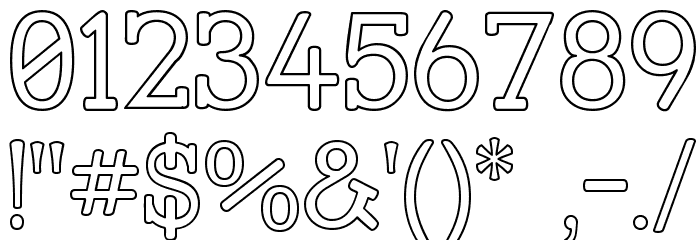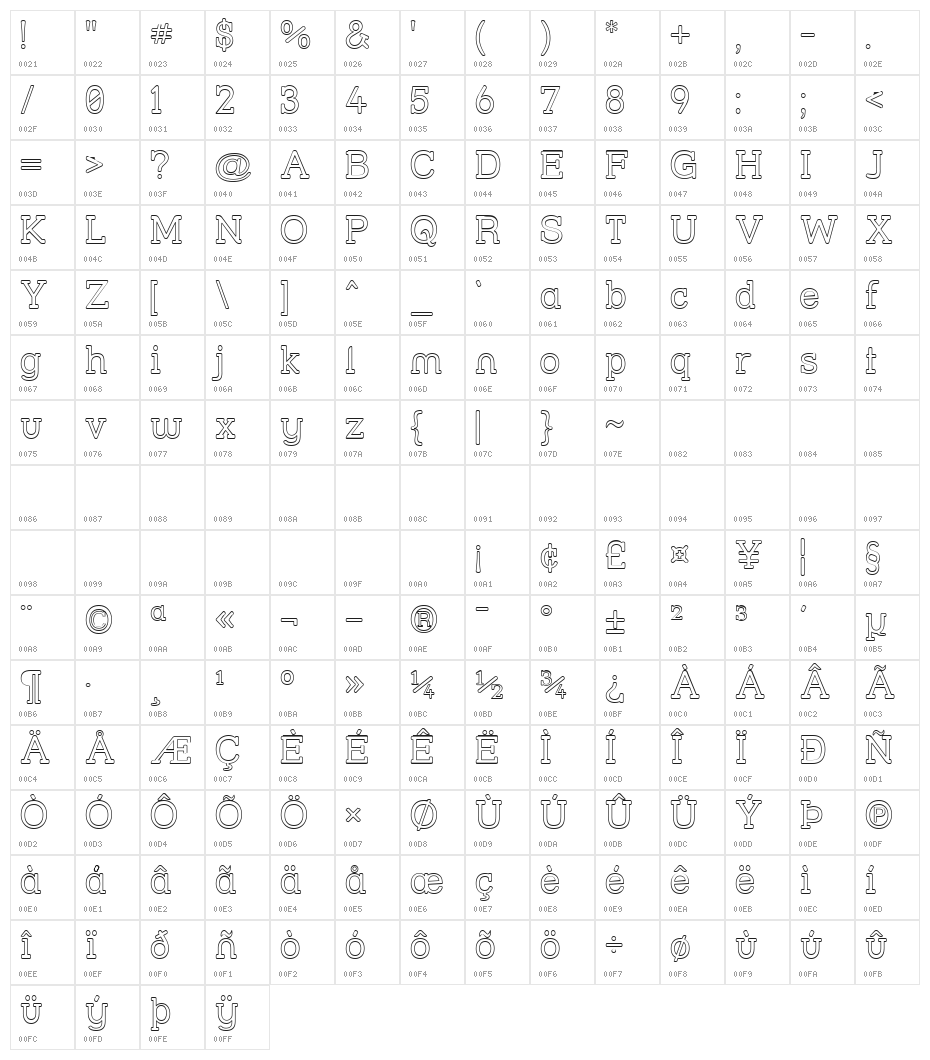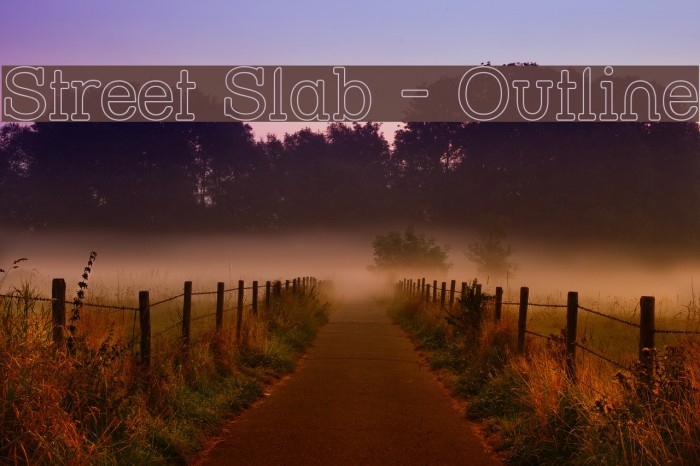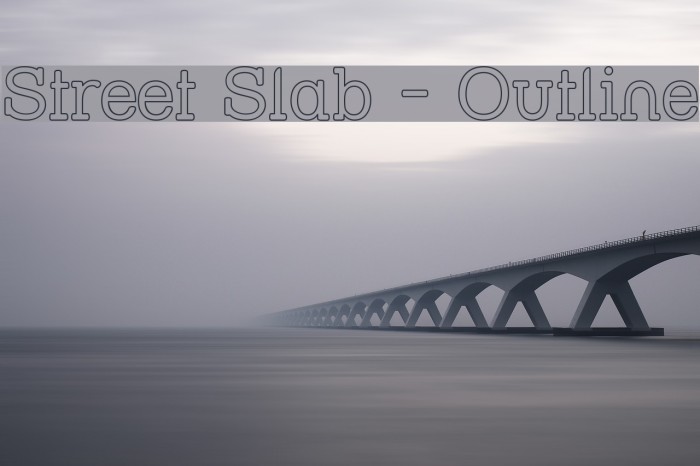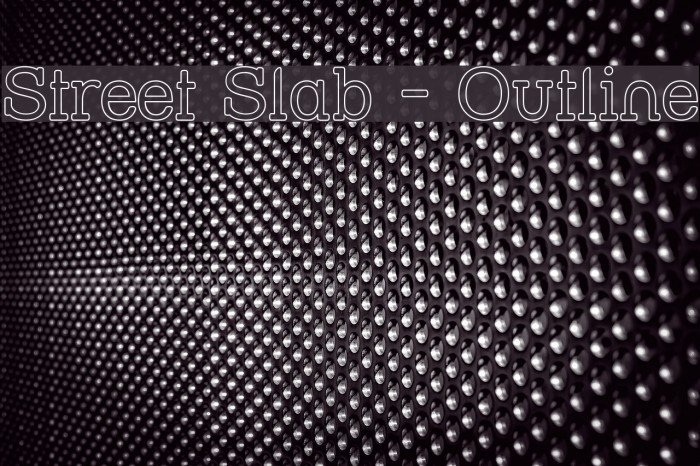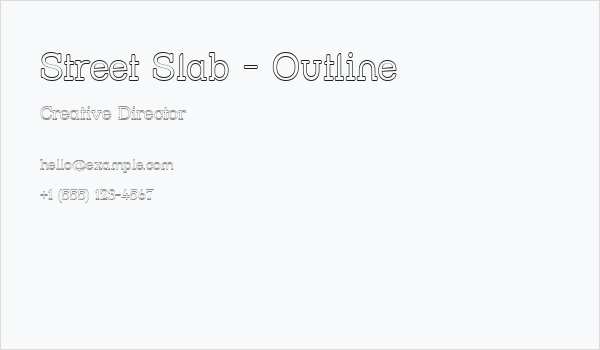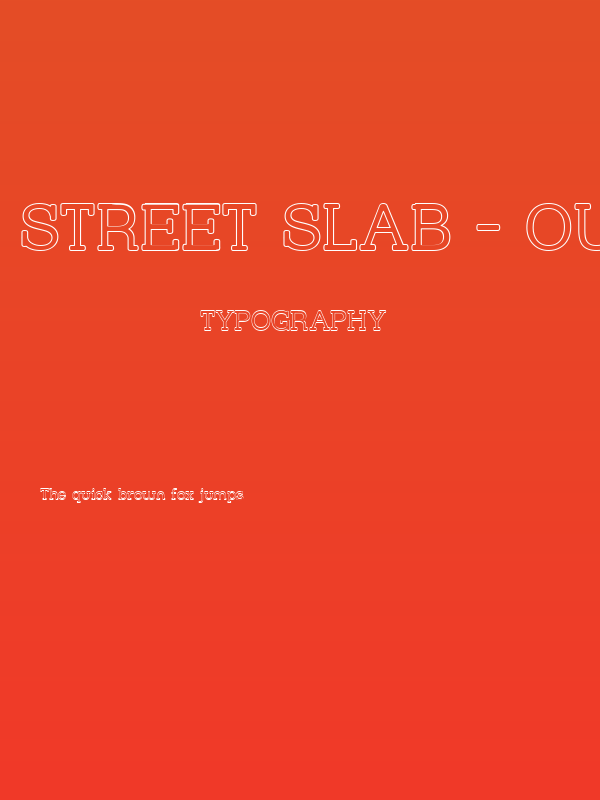
Street Slab - Outline Font
Street Slab - Outline Description
This font features a bold, outlined style with a slab serif design. The characters are well-defined with a strong geometric structure, giving it a modern yet classic appeal. The uppercase and lowercase letters maintain a consistent width, while the numerals and special characters are crafted to match the overall aesthetic. The outline effect adds a unique dimension, making it stand out in various design contexts. Its clean lines and balanced proportions make it versatile for both digital and print media.
| Proposed Projects | Ideal for branding, posters, headlines, and signage where a bold statement is needed. |